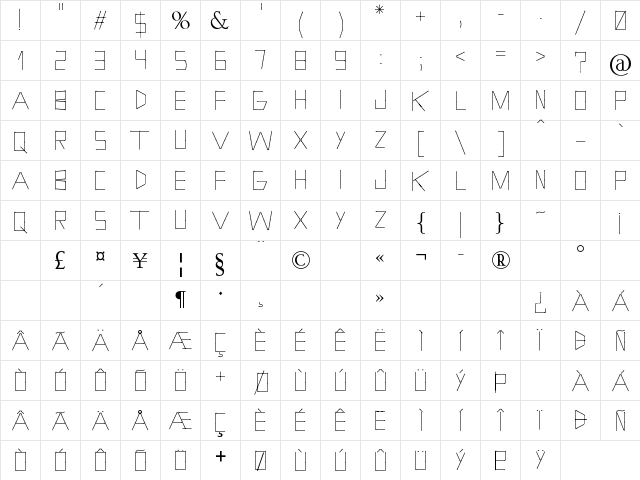
Holitter Phosphorus Regular
Design Context for Holitter Phosphorus Typeface
Holitter Phosphorus offers clean, dependable letterforms without strong stylistic allegiance, making it a practical choice for designers who need flexibility.